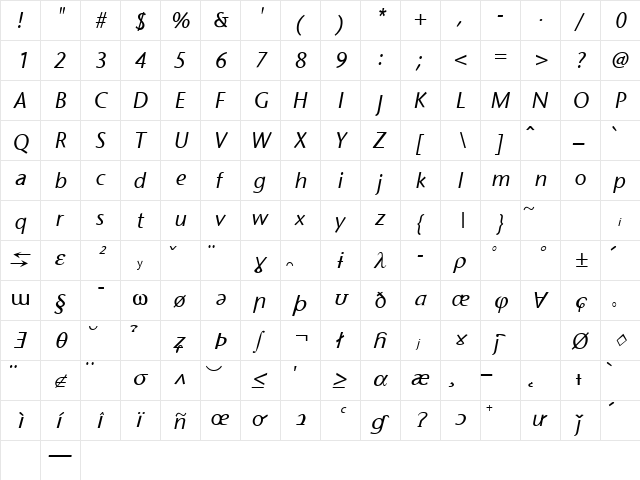
Sapir Italic
CopyrightAn italic companion to SapirSans, designed by Eric Schiller, 1991.
Design Context for Sapir Typeface
Sapir is a composed and adaptable typeface that performs quietly and consistently across a wide range of design contexts. Its italic angle brings a sense of urgency and motion to the letterforms.
Pro Tip: Use Sapir for emphasis, pull quotes, and subheadings where its slanted energy can add rhythm to the layout.